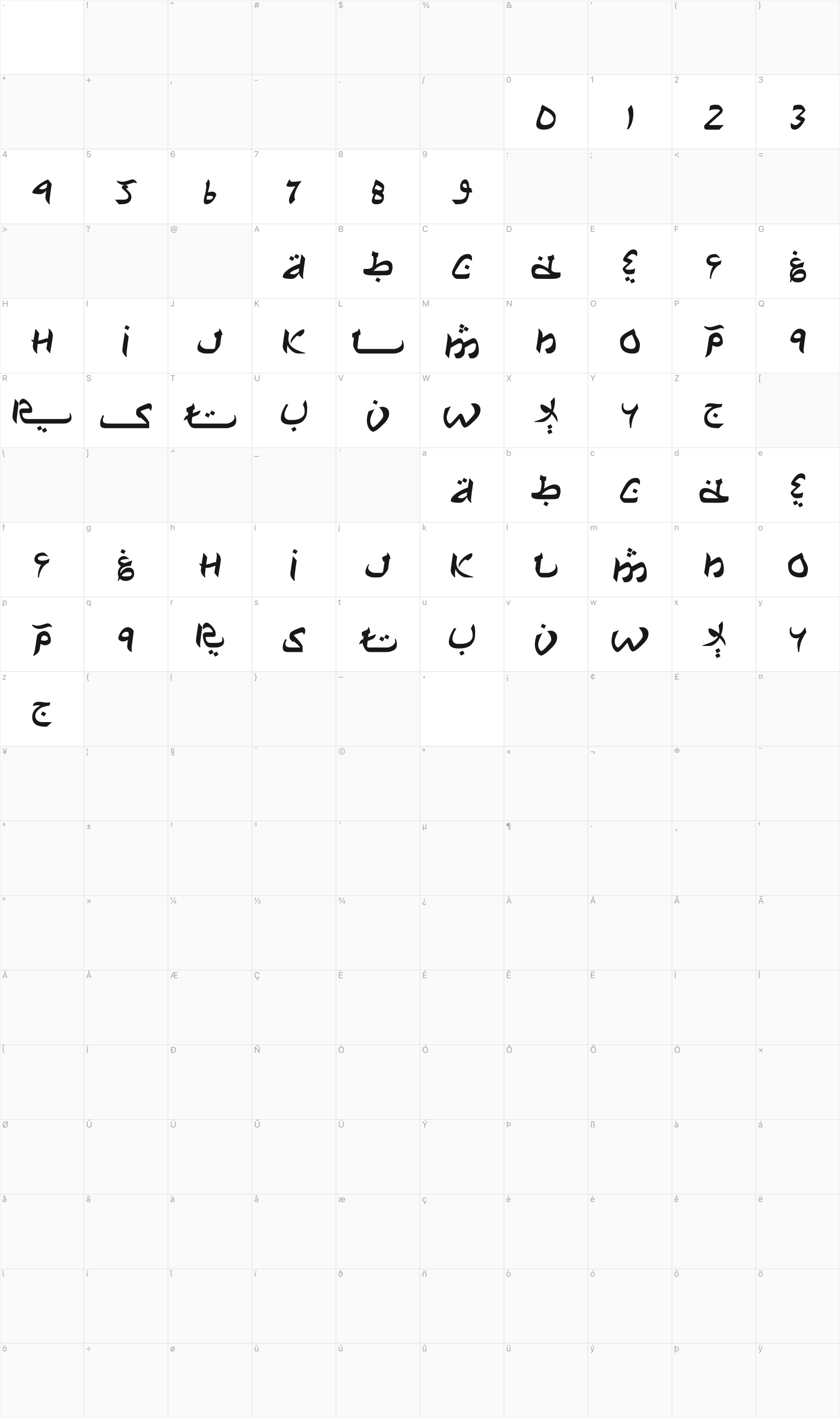
Milhamsam Dzulhijjah
Milhamsam Dzulhijjah is an Arabic-inspired display font that renders Latin characters in the visual style of Islamic calligraphy. The bold, forward-leaning forms feature sweeping curves, dot accents, and connected strokes that evoke naskh or nastaliq script traditions. It brings a strong sense of cultural identity to headlines, packaging, and event branding with Middle Eastern or Islamic themes.